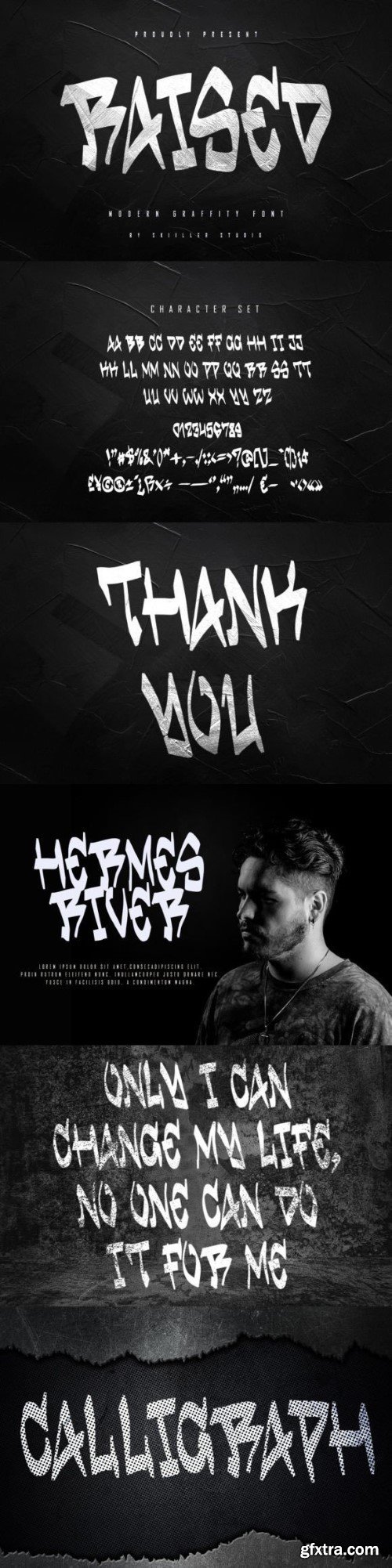
抬高的字体
Raised is an incredibly unique display font. Masterfully designed to become a true favorite, this font has the potential to bring each of your creative ideas to the highest level!